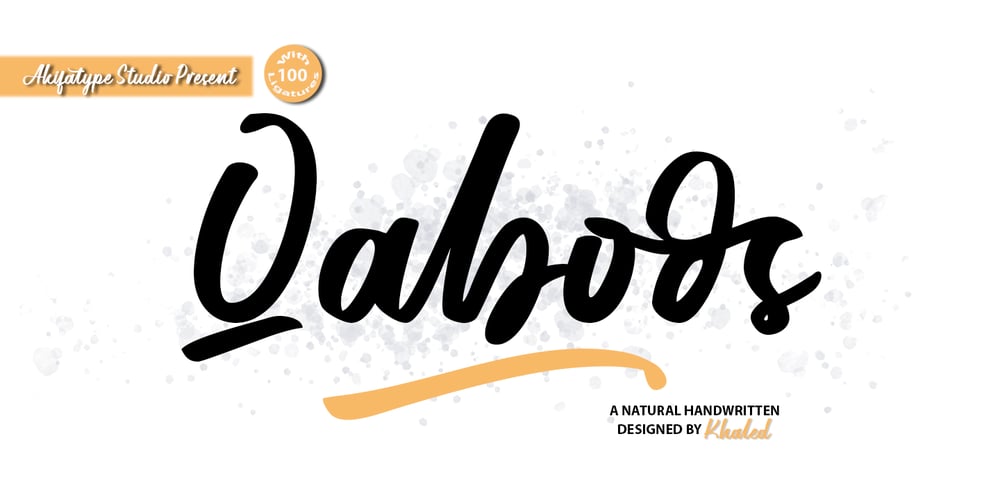
Qaboos Font Family was designed by Khaled and published by Akifatype. Qaboos contains 1 styles and family package options. Qaboos is a Natural smooth brush font, organic, dynamic and energetic sytle.Can used for various purposes. such as the title, signature, logo, correspondence, wedding invitations, letterhead, signage, labels, newsletters, posters, badges, etc.Qaboos To enable the OpenType Stylistic alternates and 100 Ligatures, you need a program that supports OpenType features such as Adobe Illustrator CS, Adobe Indesign & CorelDraw X6-X7, Microsoft Word 2010 or later versions.Qaboos is coded with PUA Unicode, which allows full access to all the extra characters without having special designing software. Mac users can use Font Book , and Windows users can use Character Map to view and copy any of the extra characters to paste into your favourite text editor/app